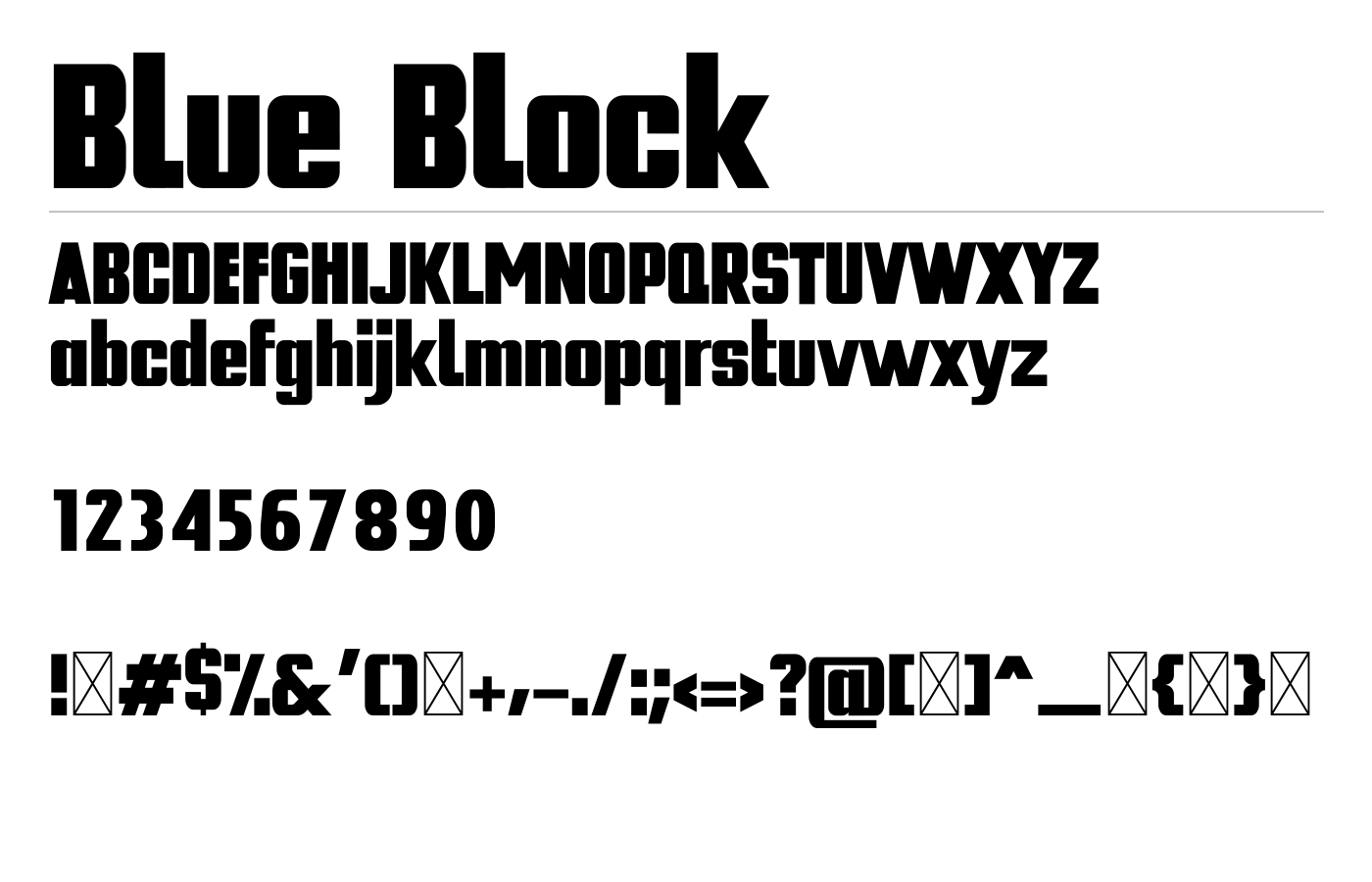
Blue Block is a bold, condensed sans serif font with strong, geometric letterforms that create a powerful and modern impact. Its uniform stroke weight and tight spacing make it ideal for headlines, logos, and branding where a confident and assertive look is needed. This font works especially well in contemporary design contexts that aim to convey strength and clarity.
Blue Block Font
About Blue Block Font
| Font family | Blue Block Font |
| Designer | Jordan Burrows |